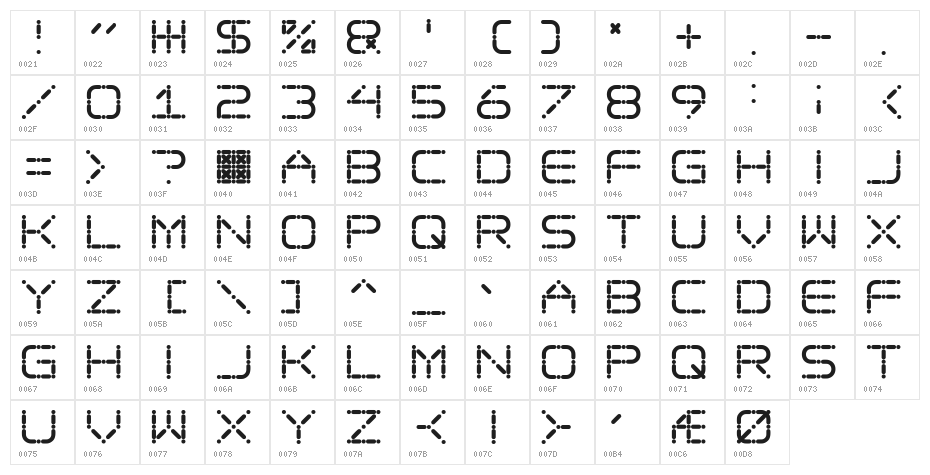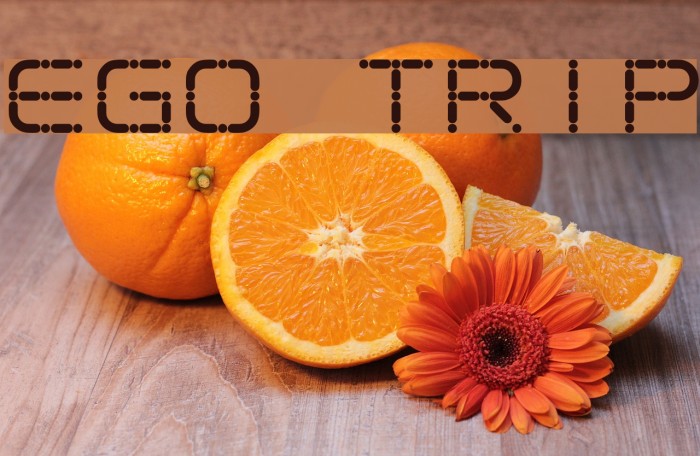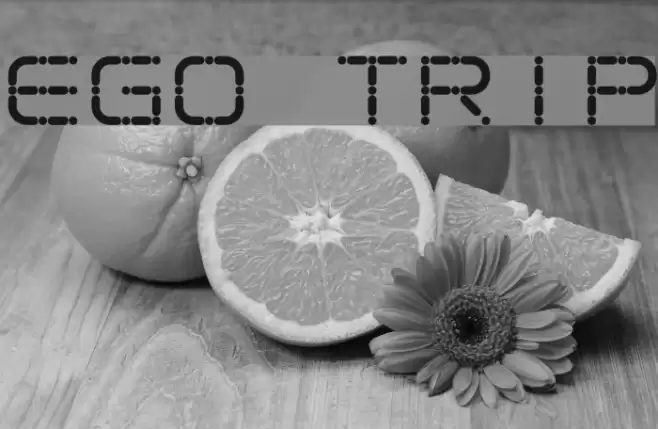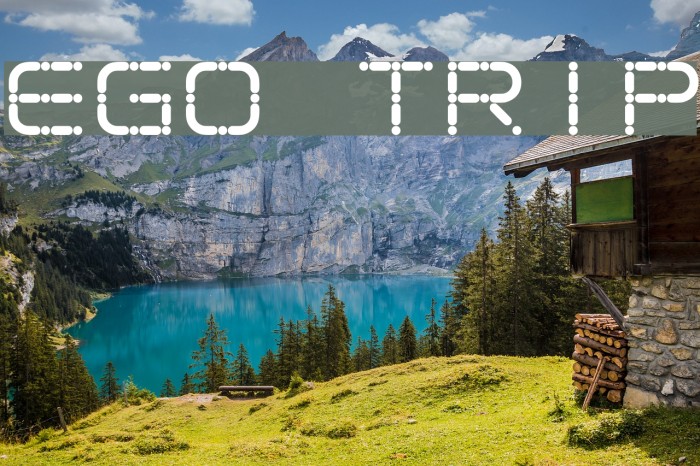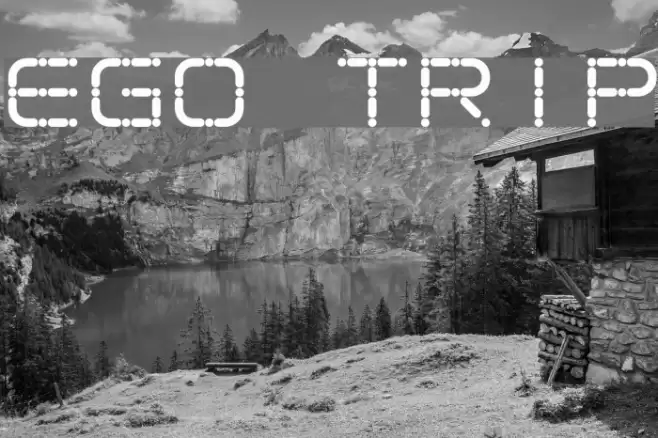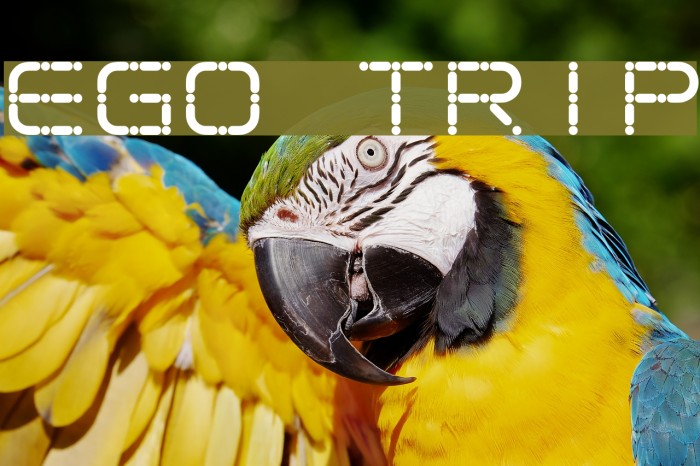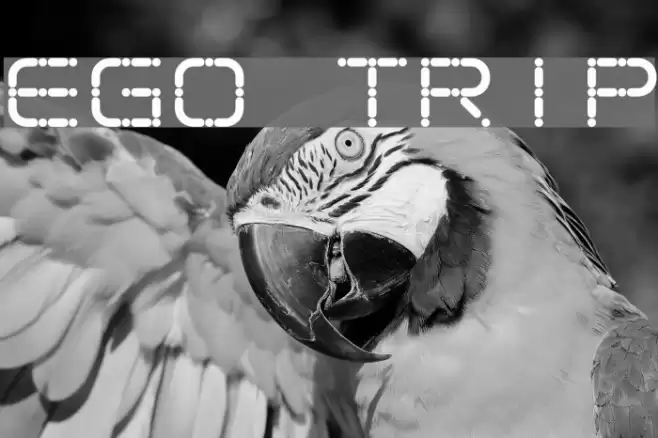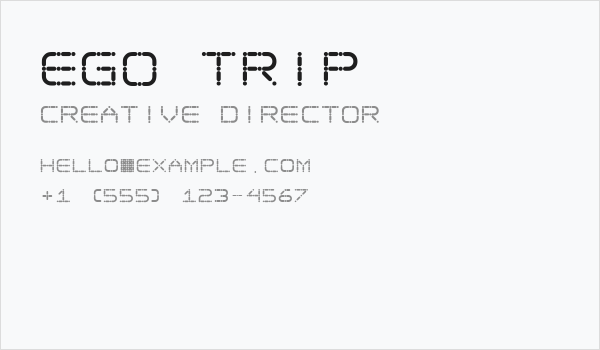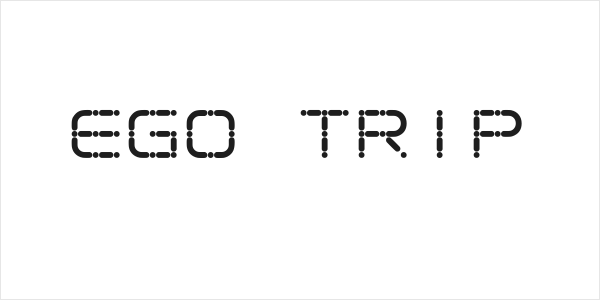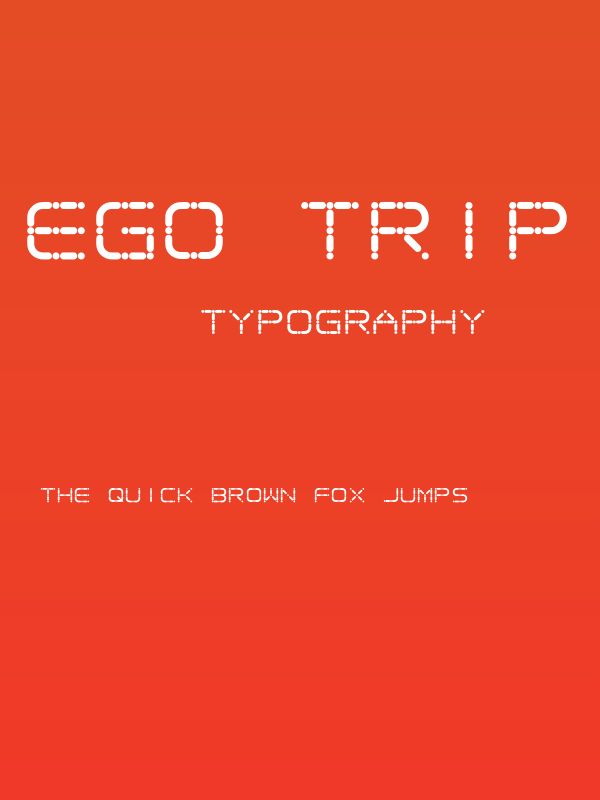
Ego trip Font
Ego trip Description
This font features a unique, dotted design that gives it a futuristic and digital appearance. Each character is constructed from a series of evenly spaced dots, creating a cohesive and consistent look across all letters, numbers, and symbols. The geometric structure of the characters is clear and precise, with rounded edges that soften the overall aesthetic. This style is reminiscent of digital displays or LED screens, making it ideal for projects that require a modern, tech-savvy feel. The uniformity in the dot spacing and size ensures readability while maintaining its distinctive style.
Proposed ProjectsIdeal for digital interfaces, tech branding, futuristic posters, and electronic-themed designs.